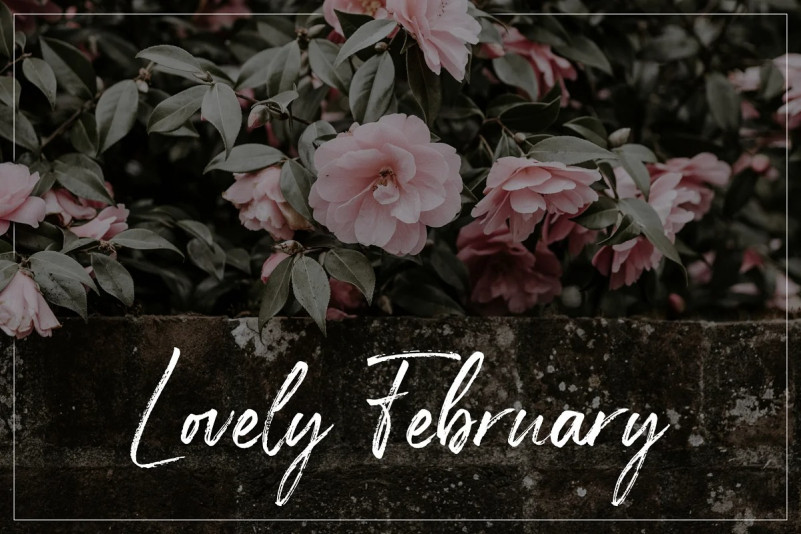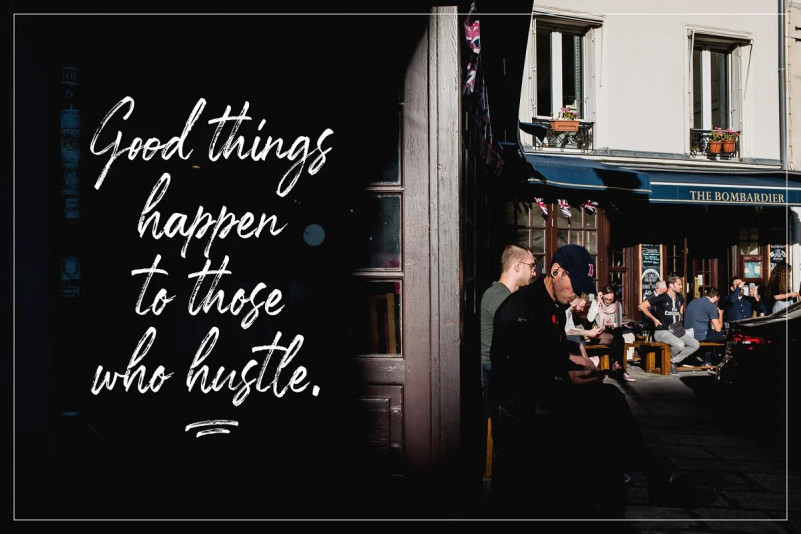
Detroid Brush Typeface
Detroid is a brush handwritten font. This is the perfect font for making original and outstanding designs.
This font is great for a wide variety of branding, advertising, posters, banners, packaging, podcasts, outdoor activities, apparel, quotes, beverages and more.
Designer Name: productype